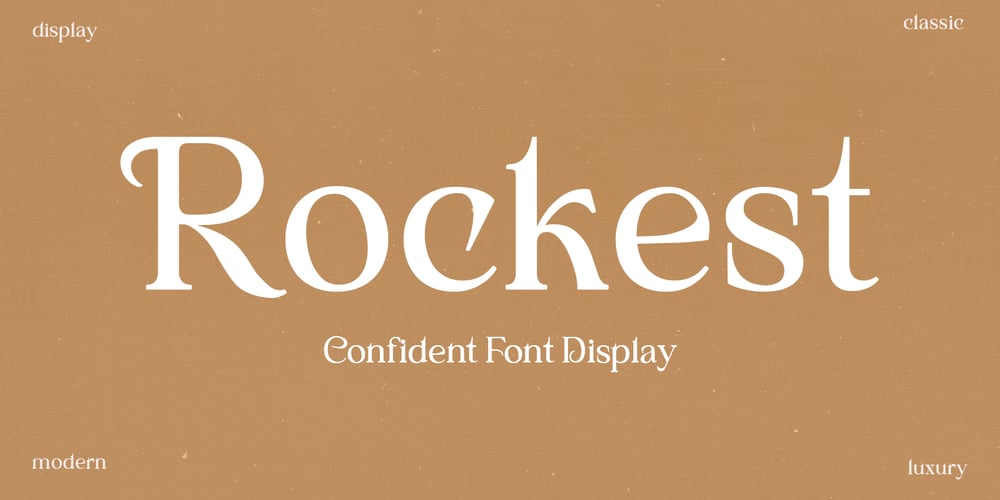
Rockest
Rockest font
Rockest Font Family was designed by Bebby Lutfitharina and published by Fontastic Lab. Rockest contains 1 styles and family package options. Rockest is Retro with extreme cuts, sharp angles and interactive straps. Affected characters are spread across three capital-only subfamilies, with distinct styles, and distinct personalities. The bold separation of characters and the considered standard of ligature create a type that is solid, modern and attractive.Rockest is a modern fashion serif font, each letter has been carefully crafted to make your text look unique.Don’t hesitate to send me a message if you have any questions!